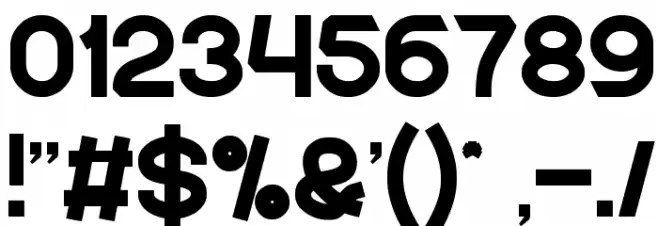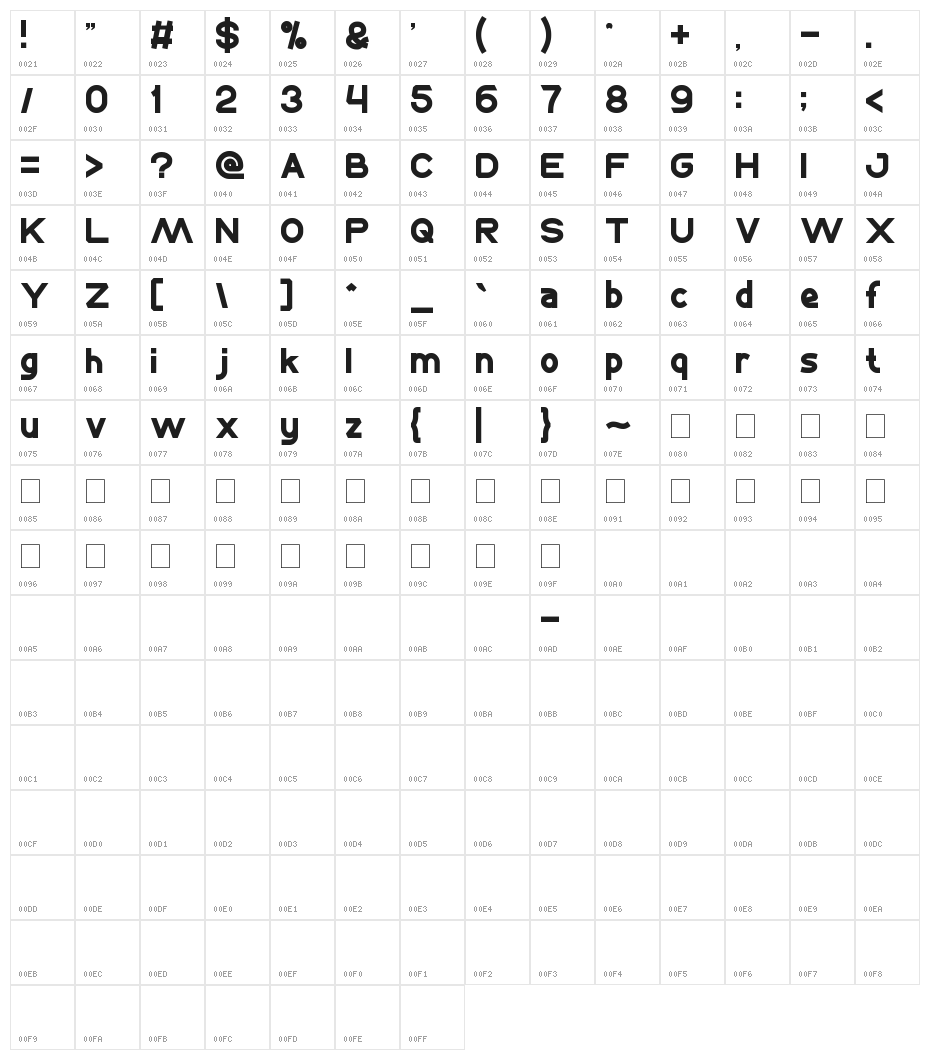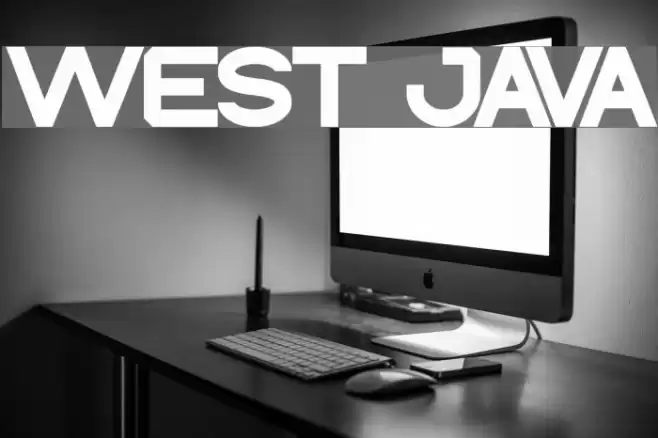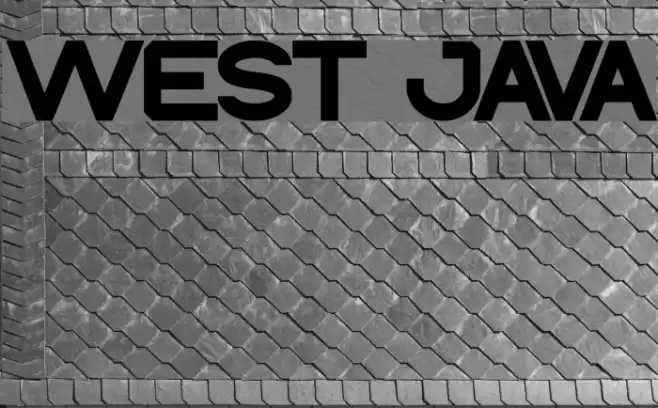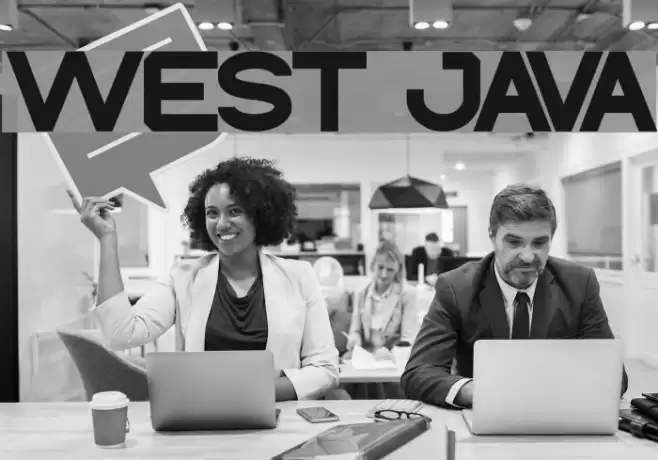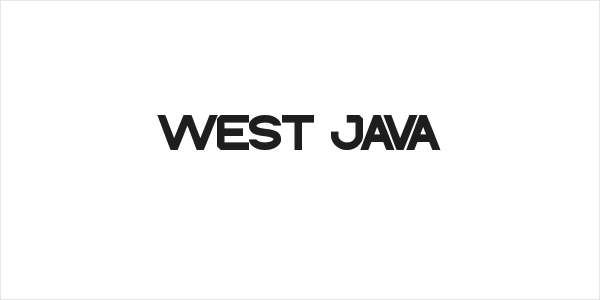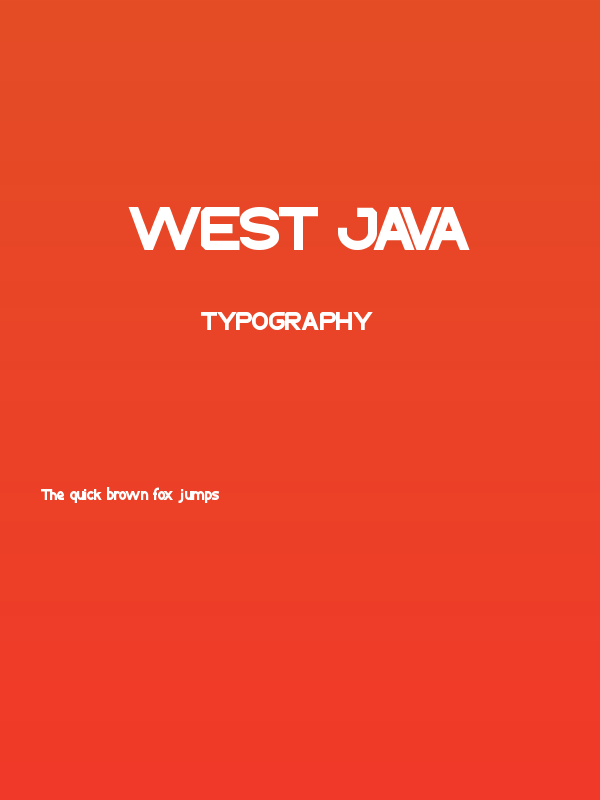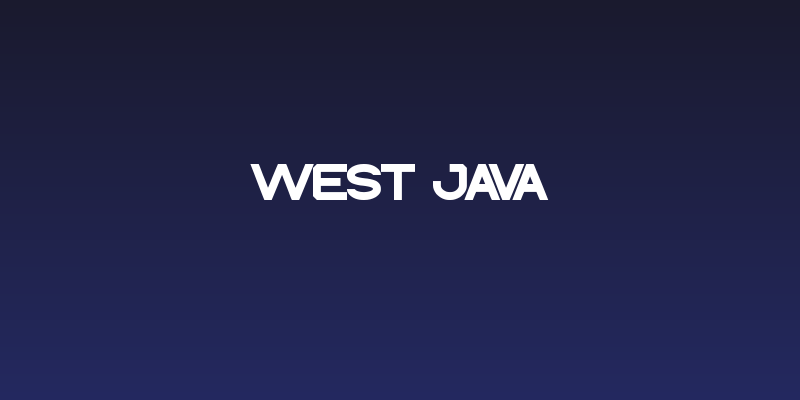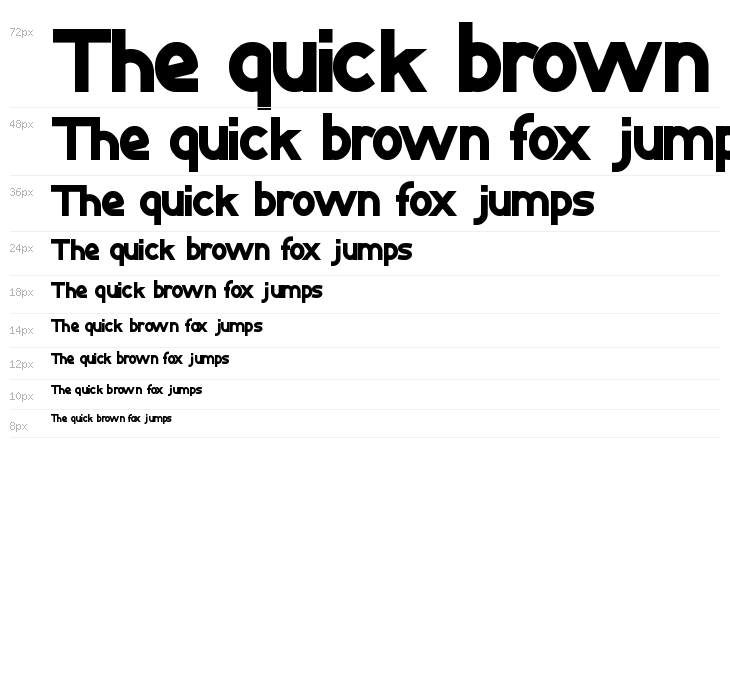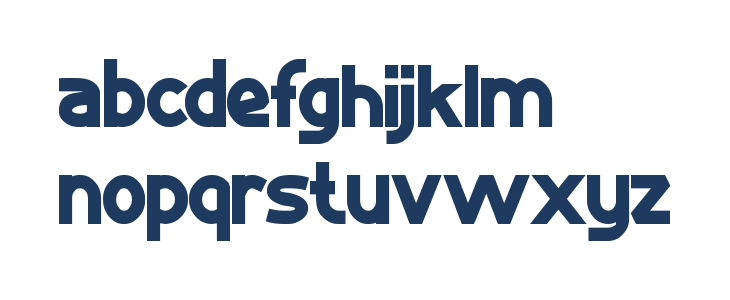
WEST JAVA Font
WEST JAVA Description
This font features a bold and modern design with a geometric structure. The characters are crafted with a strong presence, making them ideal for impactful headlines and branding. The uppercase letters are uniform in height, while the lowercase letters maintain a consistent baseline, providing a harmonious appearance. The numerals are clear and easily distinguishable, enhancing readability. Special characters are designed to complement the overall style, maintaining the font's cohesive look. The font's boldness and clean lines make it suitable for a variety of design projects.
| Proposed Projects | This font is perfect for branding, advertising, posters, and digital media where a strong visual impact is needed. |